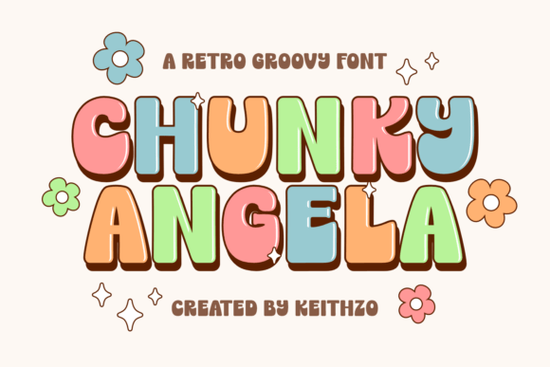
If you are looking to add a bold, nostalgic touch to your next project, the Chunky Angela font by Keithzo is a fantastic choice. This retro groovy typeface captures a fun 90s era vibe with thick, bubble-like characters that instantly make your text stand out. Whether you are designing custom apparel for your print-on-demand shop or creating vibrant social media graphics, this display font delivers the playful vintage aesthetic you need.
What makes this typeface a good fit for physical merchandise?
When selling physical products, your typography needs to grab attention quickly. The rounded, energetic style of these characters works exceptionally well on custom t-shirts, decorative stickers, and stylish tote bags. Because the letters are thick and highly legible, they translate beautifully to physical mediums. Crafters using vinyl cutters or sublimation printers will appreciate how the bold shapes hold up without losing their charm. Small business owners selling at local craft fairs will find that this typography helps their booth stand out in a crowded room. It brings a touch of magic to everyday items, making them feel unique and handcrafted.
How can I pair it with other styles?
Mixing fonts is a great way to create visual interest, but finding the right balance can be tricky. Since this bubble font is so dominant, it pairs best with simpler, cleaner typefaces for your body text. If you are working on a retro-themed poster and need another vintage option for your subheadings, you might want to explore the Texas Vintage typeface for a complementary rustic feel. For a more elegant contrast, the Belvona script offers a beautiful alternative that softens the overall look.
If your project leans more towards a contemporary aesthetic, pairing it with a sleek option like the Duoline modern typeface creates a striking old-meets-new dynamic. On the other hand, if you are designing something with a darker or more edgy seasonal theme, you could mix it with the Crimson Horror display for an unexpected, playful contrast. Finally, for bright, eye-catching event banners, the Radiant Marquee lettering works wonderfully alongside it to keep the energy high.
Is it suitable for seasonal and digital projects?
Absolutely. The cheerful personality of these characters makes them perfect for seasonal graphics. You can easily use them for bright summer-themed designs, pastel Easter cards, or upbeat holiday promotions. In the digital space, readability is just as important as style. When creating Instagram carousels or TikTok overlays, the thick strokes ensure your message is readable even when the viewer is scrolling quickly. This typeface ensures your social media quotes and digital banners remain clear and engaging, even on smaller mobile screens. The user-friendly design means you spend less time tweaking spacing and more time focusing on your overall layout.
Before you start your next design, keep this quick checklist in mind to get the best results:
- Test the scale: Print a small physical proof to ensure the thick lines do not bleed or blur on your chosen material.
- Check the contrast: Pair the bold bubble letters with a simple sans-serif for your secondary text to maintain readability.
- Use color wisely: Bright, contrasting colors will make the retro 90s vibe truly pop on your merchandise.